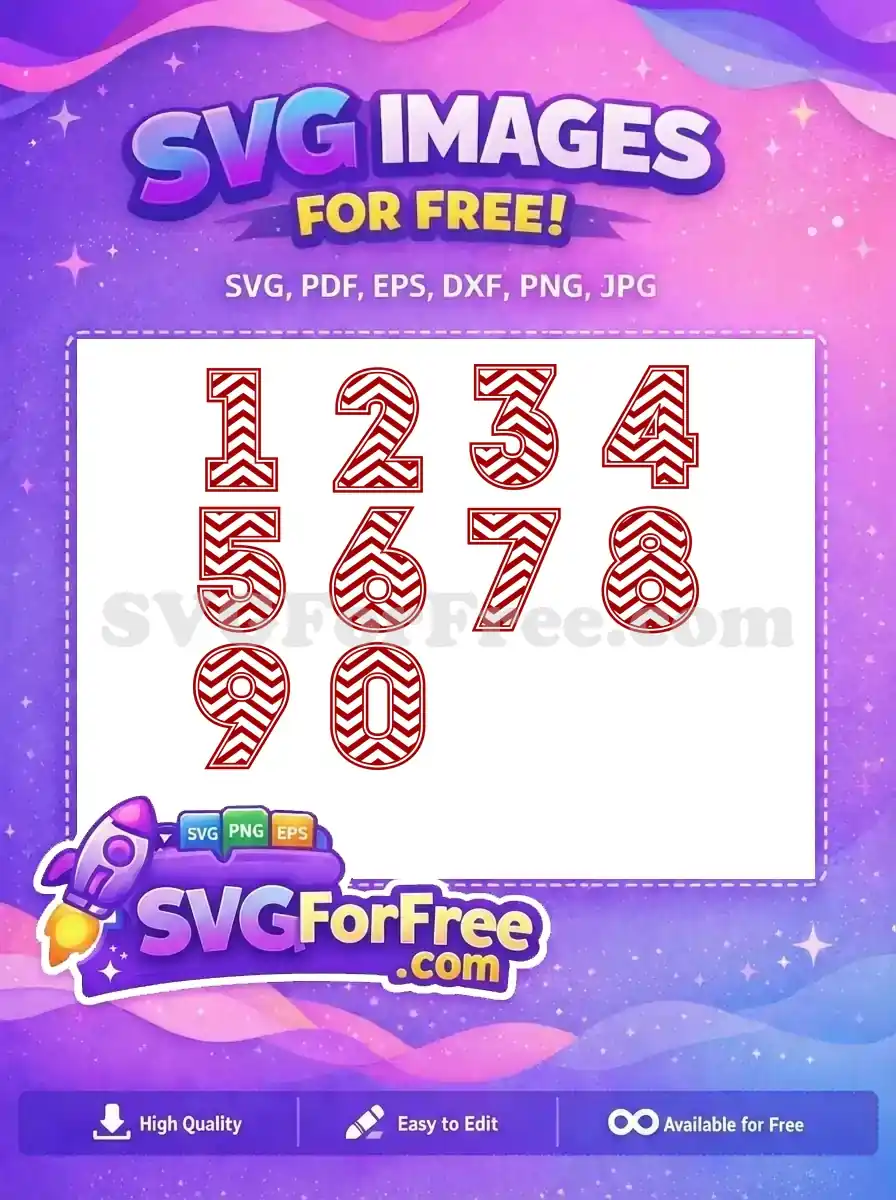
Free Numbered Font Free Red Chevron Miscellaneous Cut Free SVG – Instant Download
Full set of small chevron patterned numbers zero to nine, free digits.
Free Numbered Font Free Red Chevron Miscellaneous Cut Free SVG